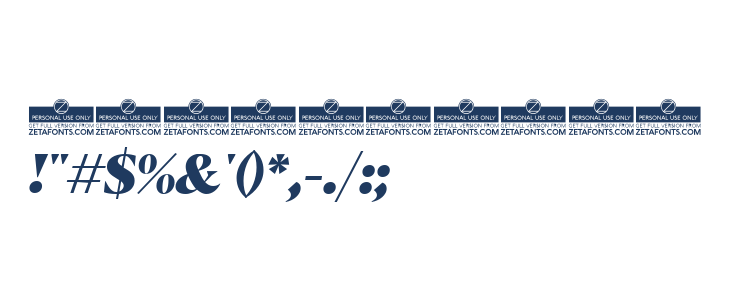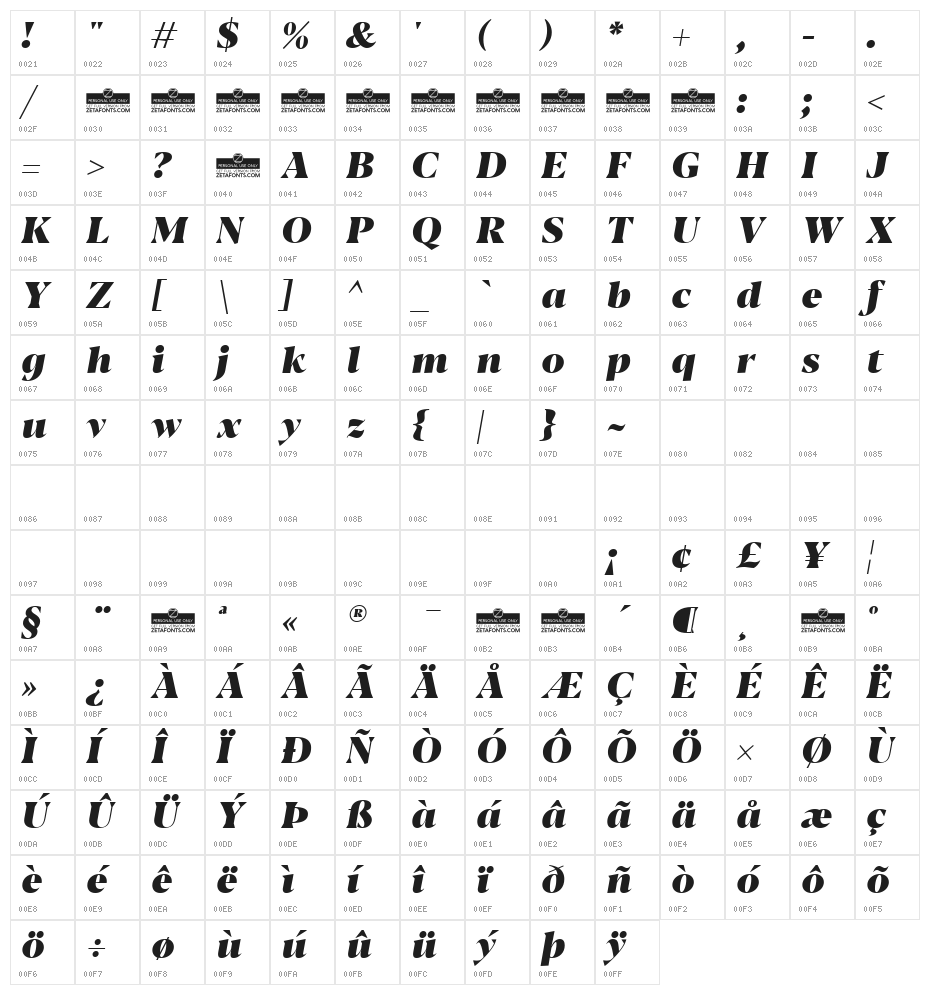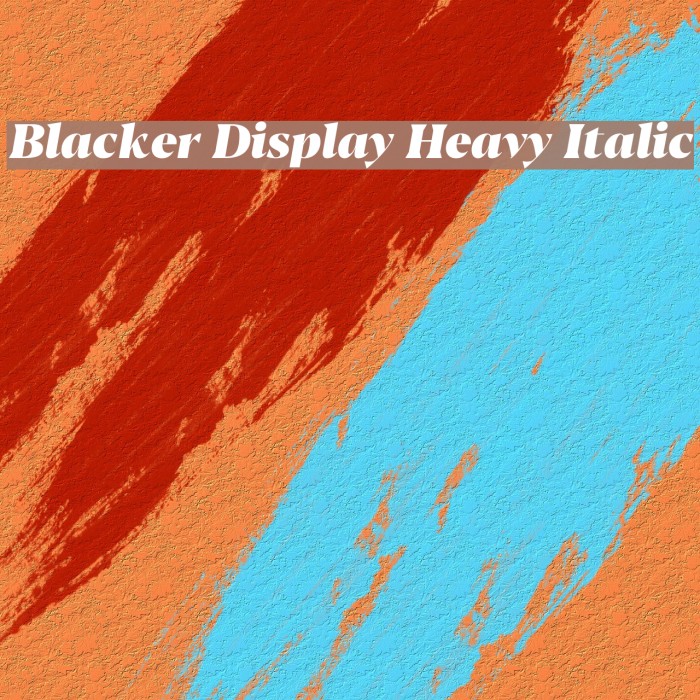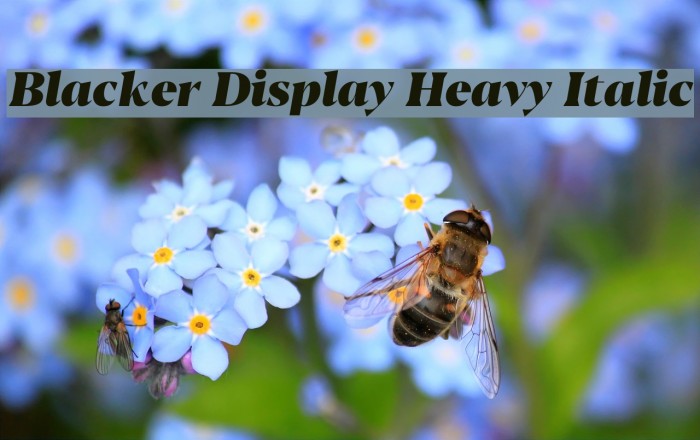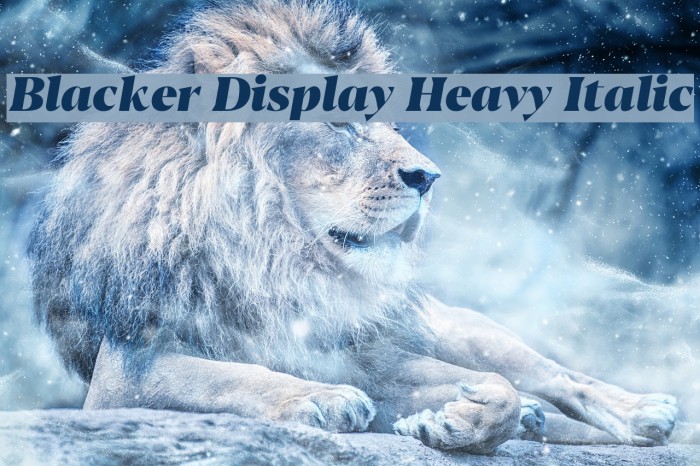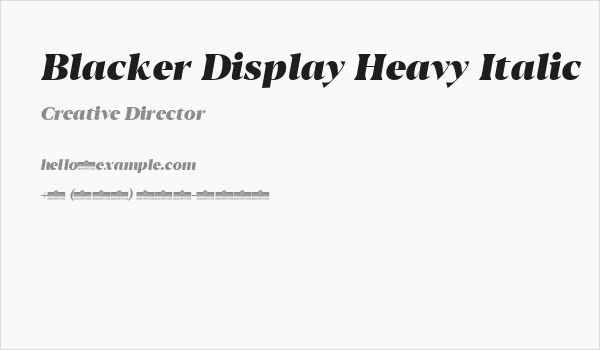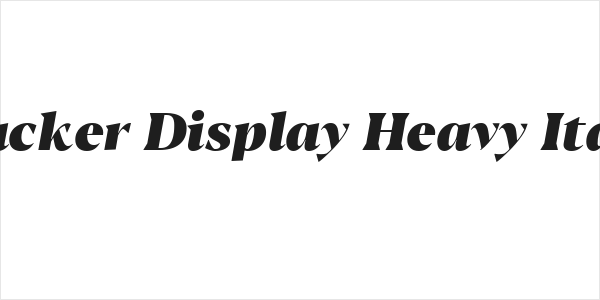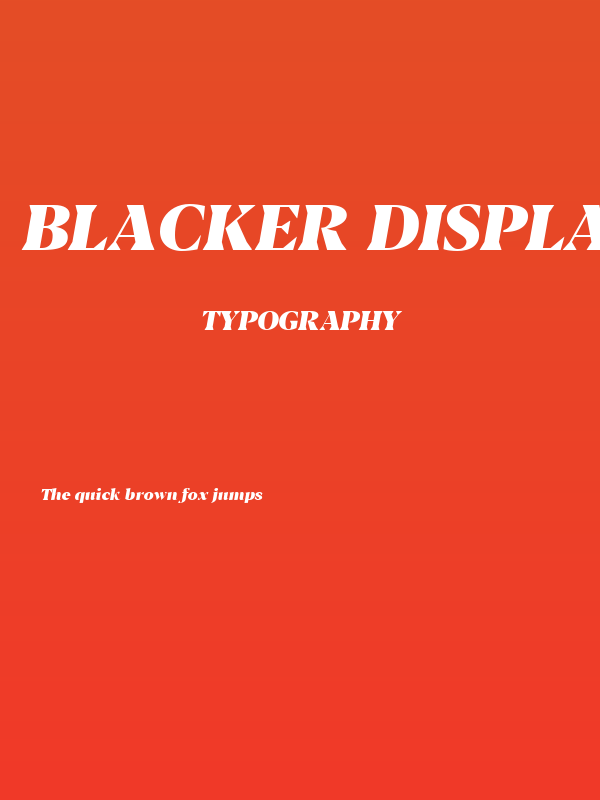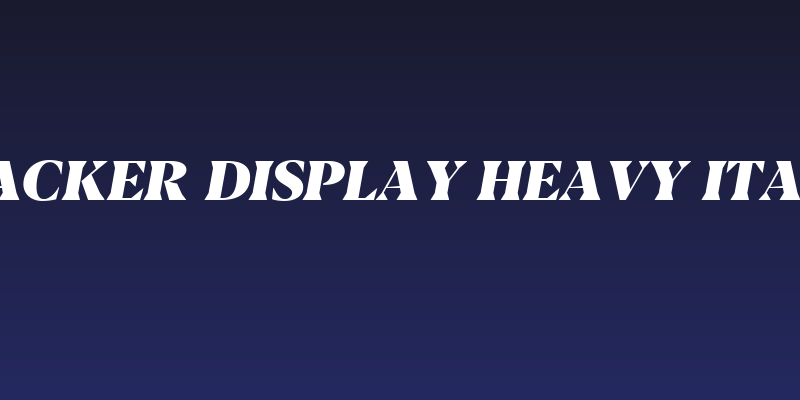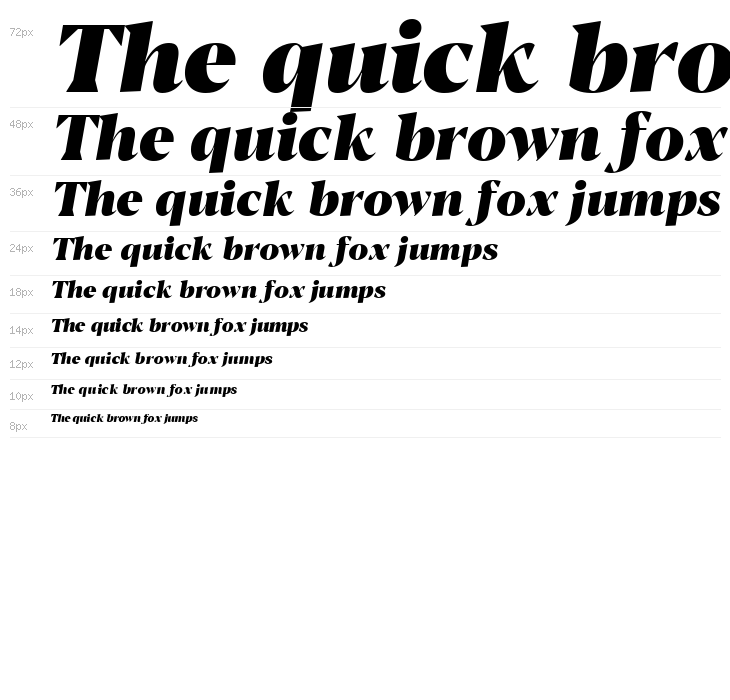
Blacker Display Heavy Italic Font
Blacker Display Heavy Italic Description
This font exhibits a bold and dynamic style with a strong presence, characterized by its heavy weight and italicized form. The strokes are thick and pronounced, providing a high contrast between thick and thin lines. The serifs are sharp and angular, adding a sense of elegance and sophistication. The italic slant gives it a sense of motion and fluidity, making it suitable for impactful and attention-grabbing designs. The uppercase letters are robust and commanding, while the lowercase letters maintain a consistent flow. The numerals and special characters are designed to match the overall bold aesthetic, ensuring uniformity across all text elements.
Proposed ProjectsIdeal for headlines, branding, advertising, and editorial design where a strong visual impact is desired.